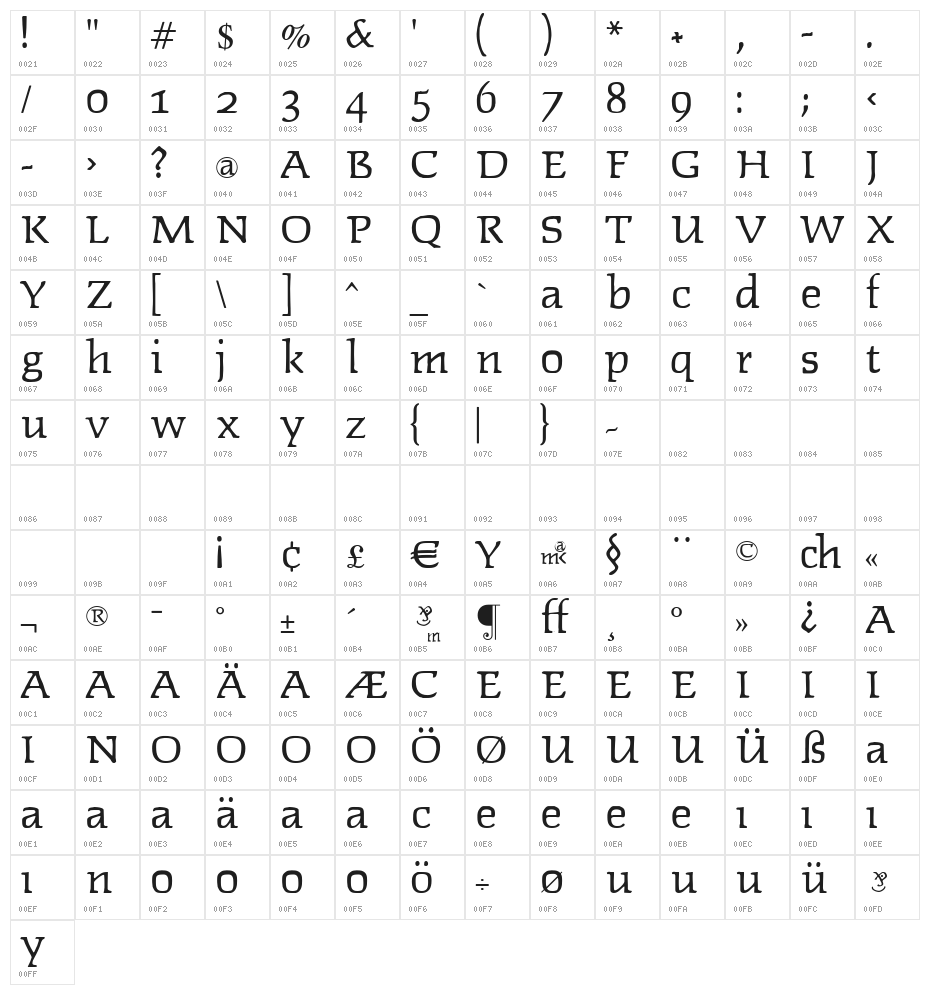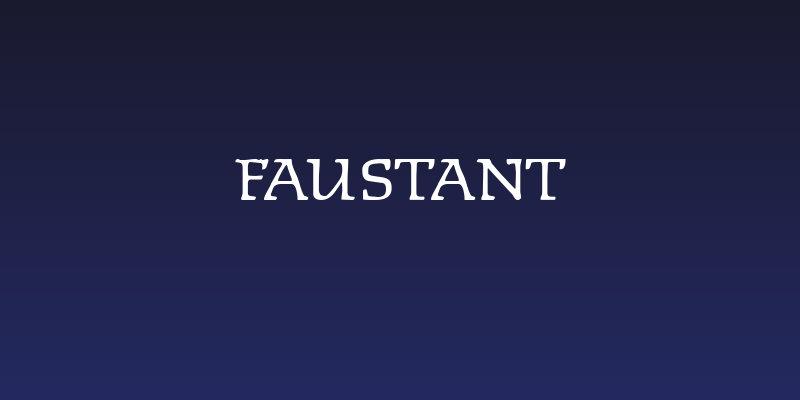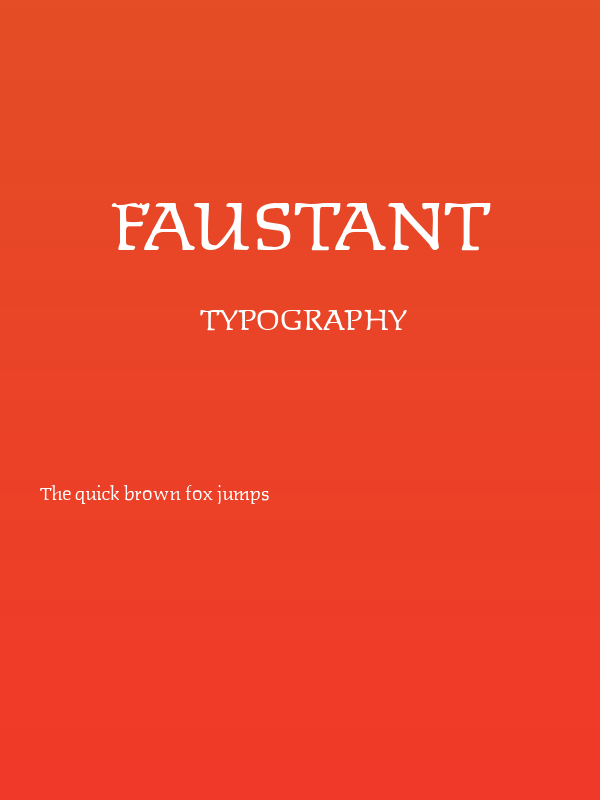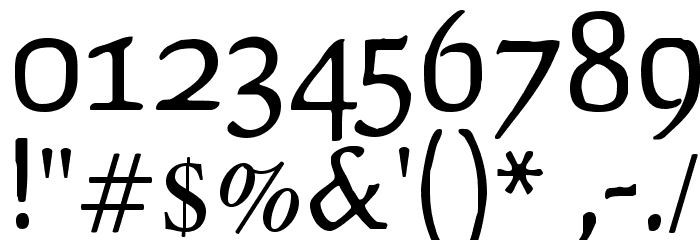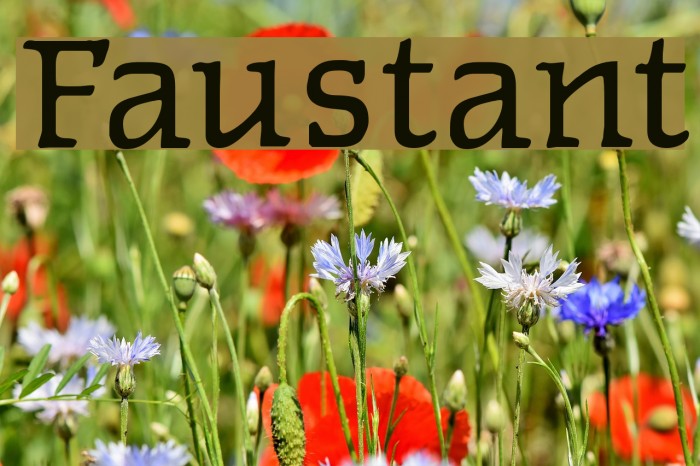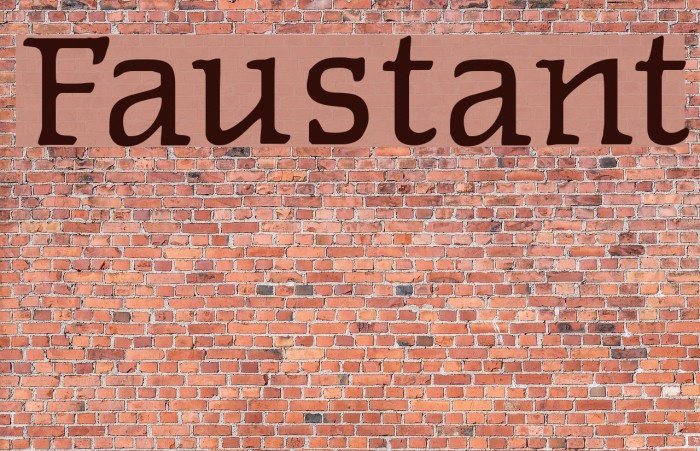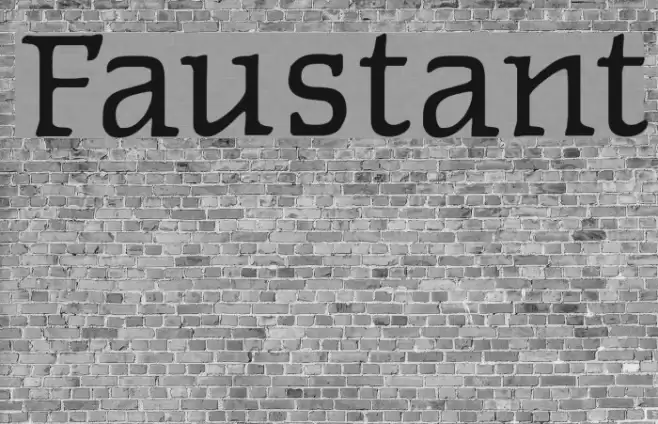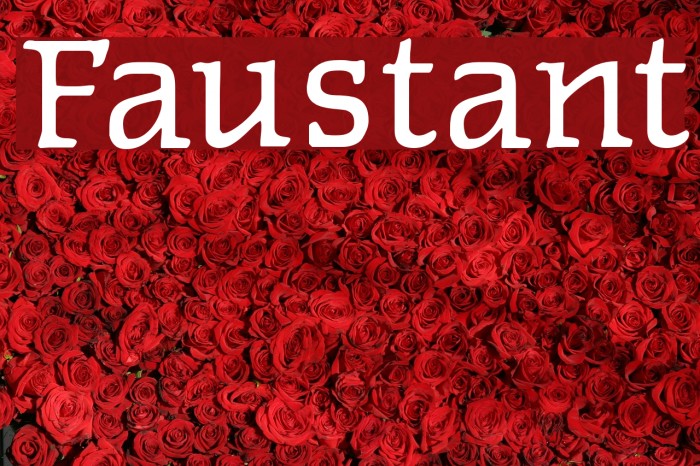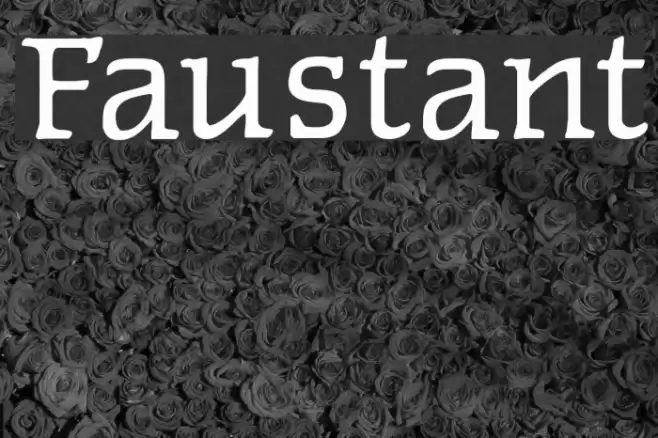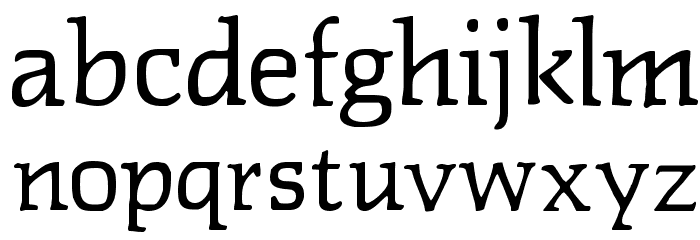
Faustant Font
Faustant Description
This font features a classic serif style with a slightly calligraphic touch, giving it a unique and elegant appearance. The uppercase letters are bold and well-defined, while the lowercase letters maintain a consistent flow with subtle curves. The numerals are distinct and easy to read, with a traditional design that complements the overall aesthetic. Special characters are crafted with attention to detail, enhancing the font's versatility. The font's design is both timeless and adaptable, suitable for a variety of applications.
| Overall Style | Classic |
| Use Case | Headlines, Body text, Logos |
| Proposed Projects | Ideal for book covers, formal invitations, branding materials, and editorial design. |